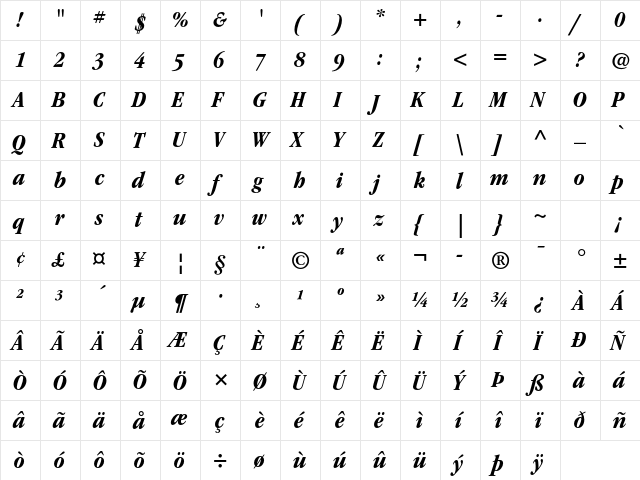
ITC Garamond Std Bold Condensed Italic Font Preview
| Designer | Tony Stan |
Design Context for ITC Garamond Std Typeface
ITC Garamond Std takes a measured approach to typography — its balanced proportions and neutral character make it a reliable workhorse for both digital and print work. Its italic angle brings a sense of urgency and motion to the letterforms. Its bold stroke weight gives it real presence on the page. Its narrow stance lets it pack a punch even in space-constrained designs.
Pro Tip: Try ITC Garamond Std for annotation and caption copy alongside an upright companion — the contrast in angle creates a dynamic but ordered typographic system.